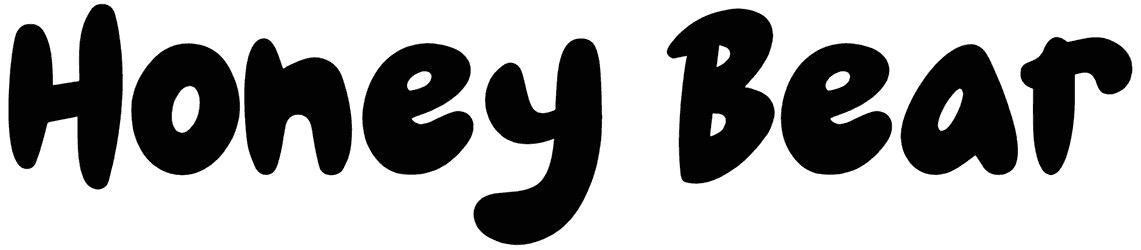
Honey Bear Font
Let’s give a sweet vibe to your words with Honey Bear and present a refreshing design. This cartoon font, with its silky and playful style, would be harmonized with various happy subjects. Place the Honey Bear font on your future designs, like school posters, apparel, invitations, postcards, or many others the same, and give them an eye-catching vibe.